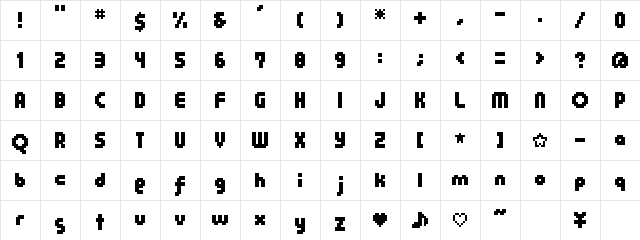
BM aztec A12
Design Context for BM aztec Typeface
BM aztec is a composed and adaptable typeface that performs quietly and consistently across a wide range of design contexts.